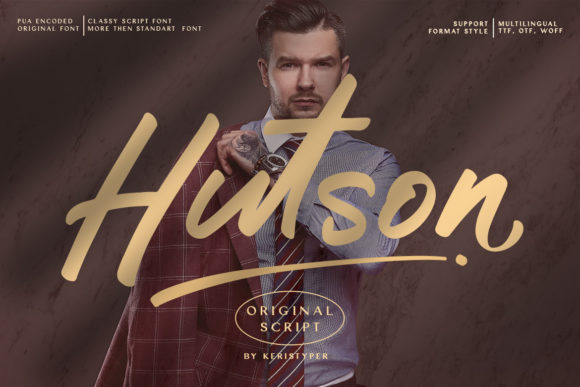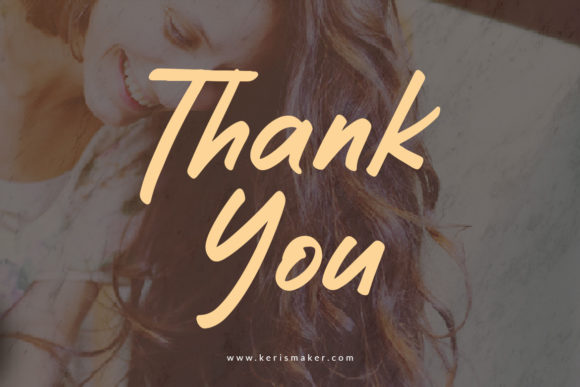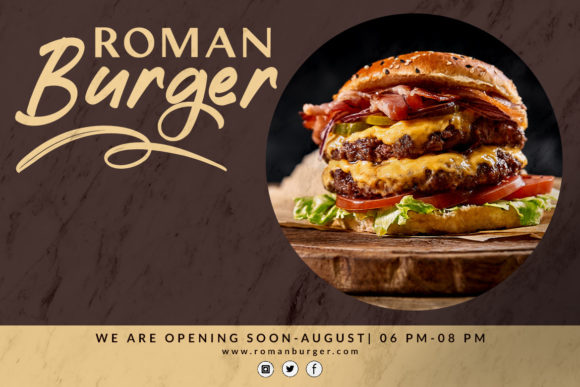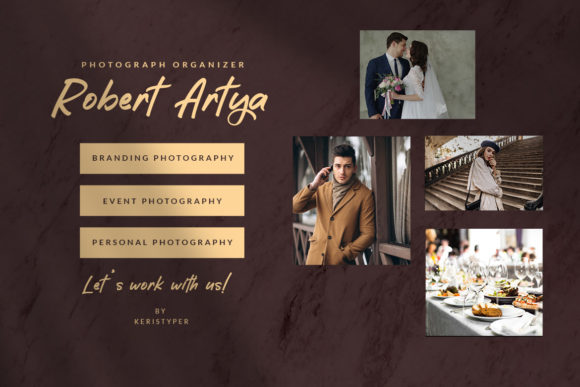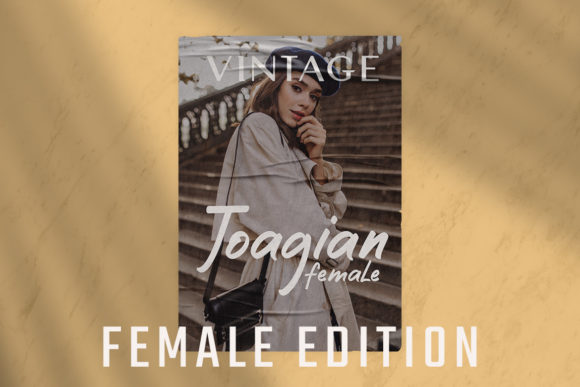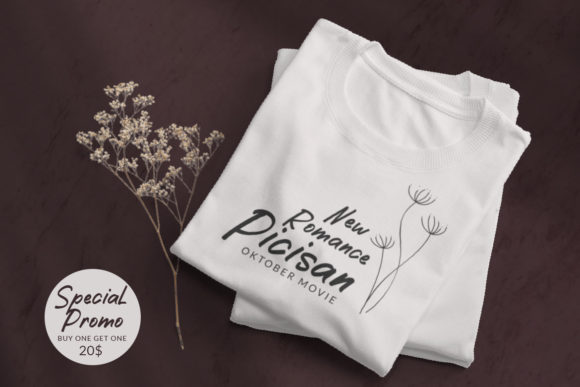
About Hutson Font
Hutson is a brushed and casual script typeface. Its subtle shapes make this font suitable for an entire range of projects.
Hutson is perfect for branding projects, logo, wedding designs, social media posts, advertisements, product packaging, product designs, label, photography, watermark, invitation, stationery and any projects that need a customized taste.